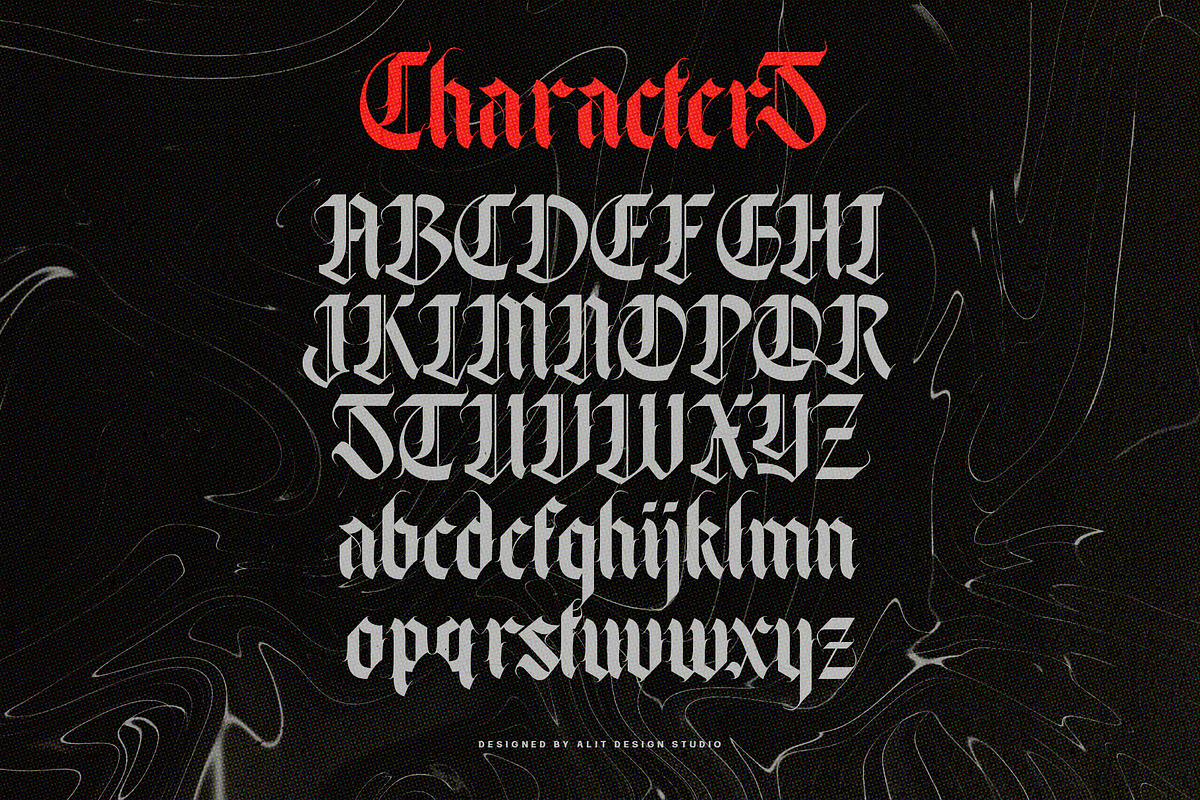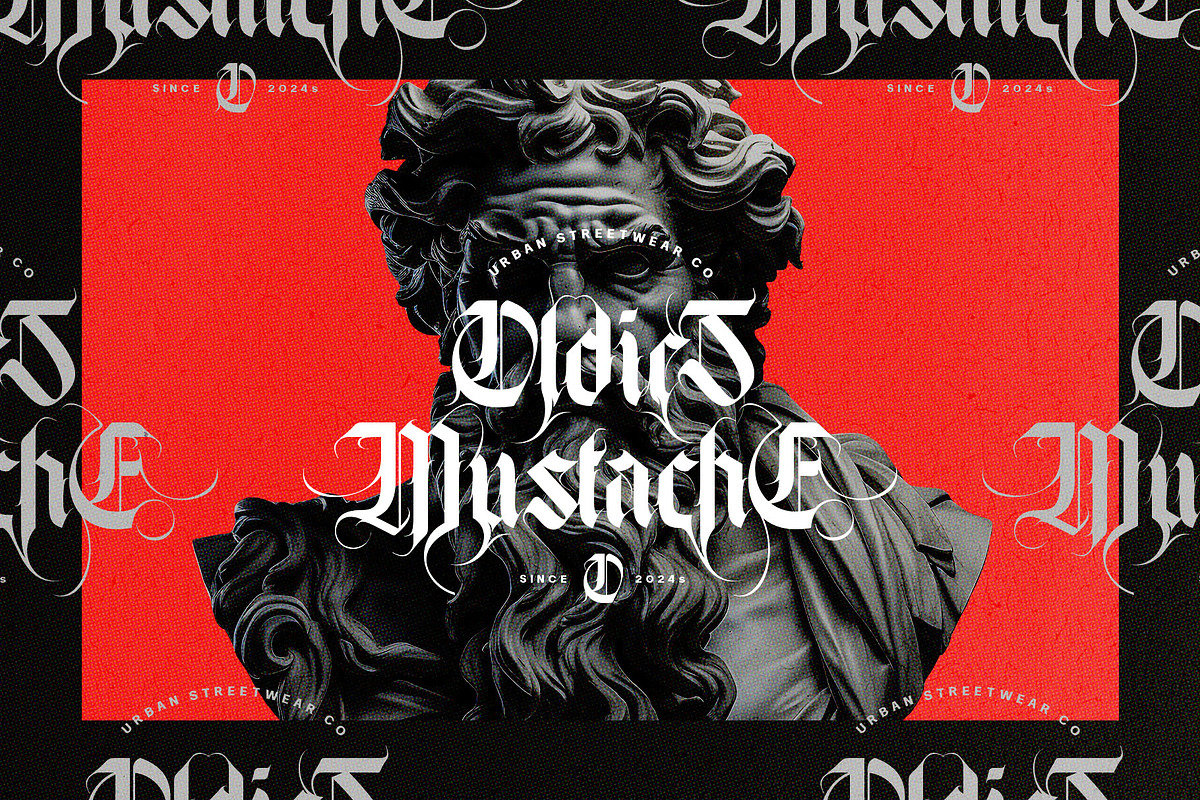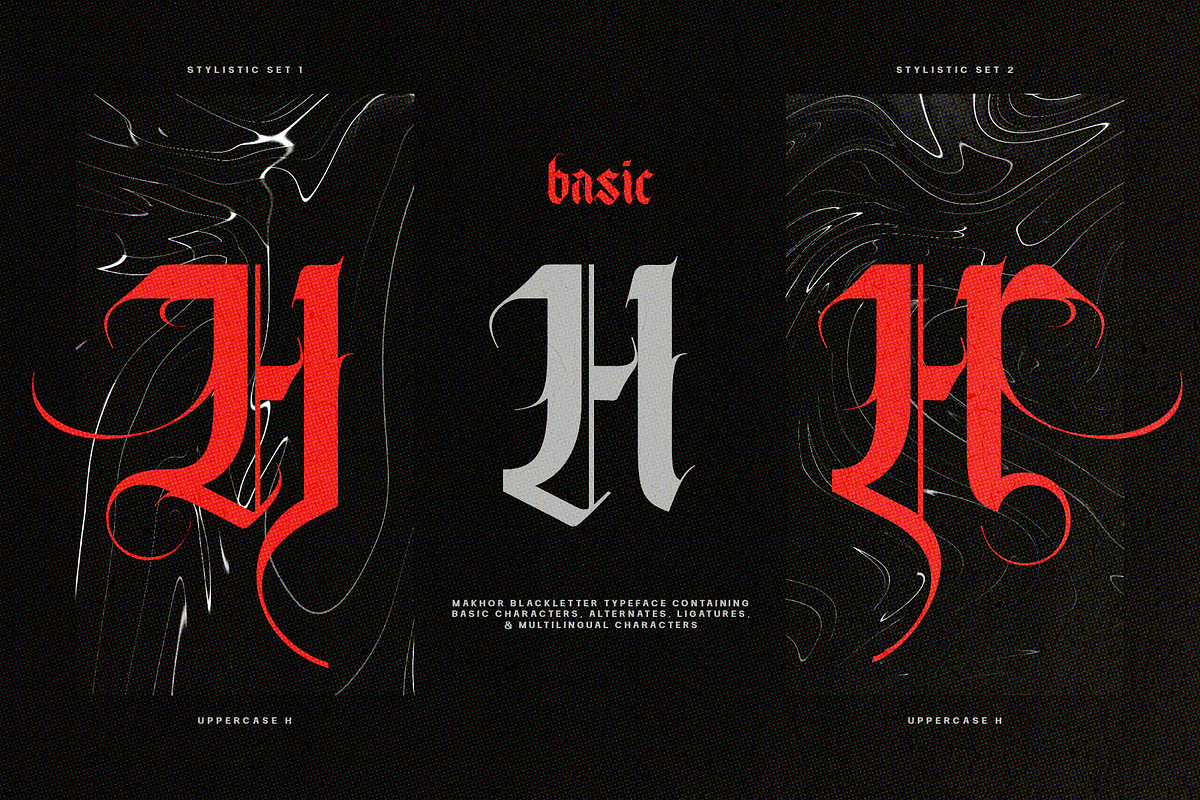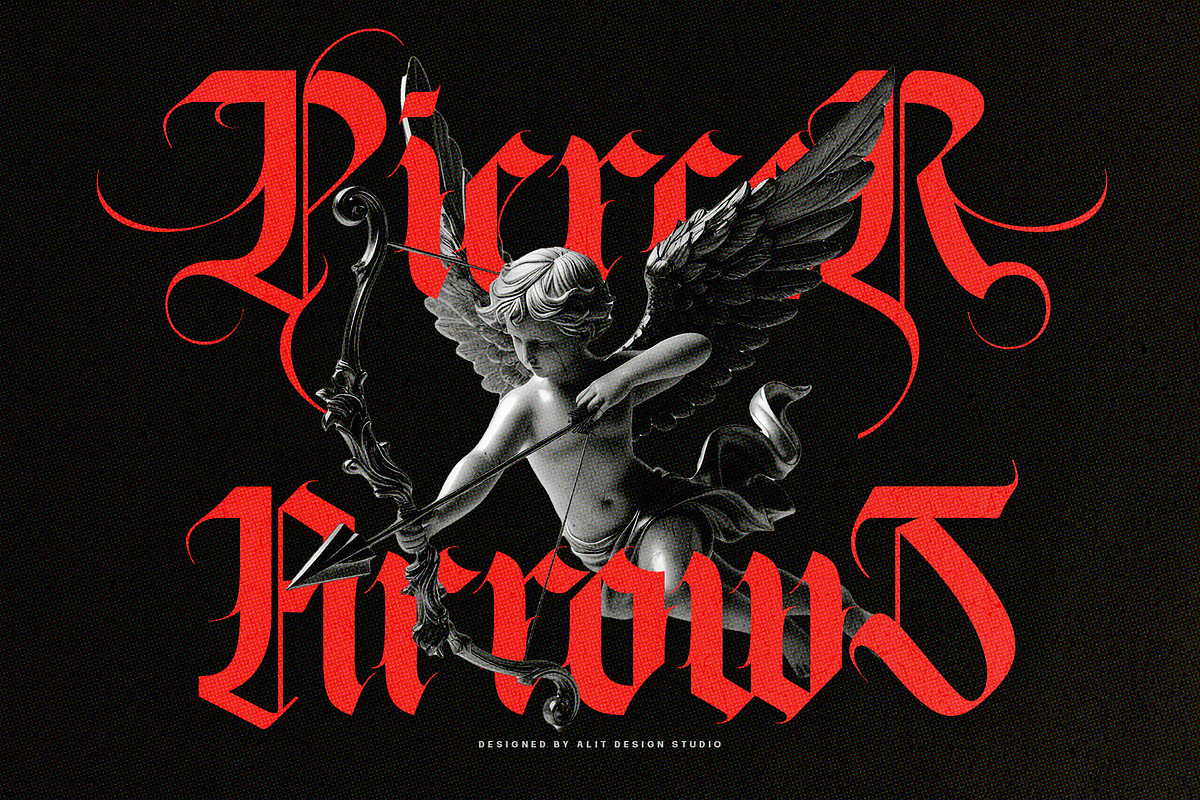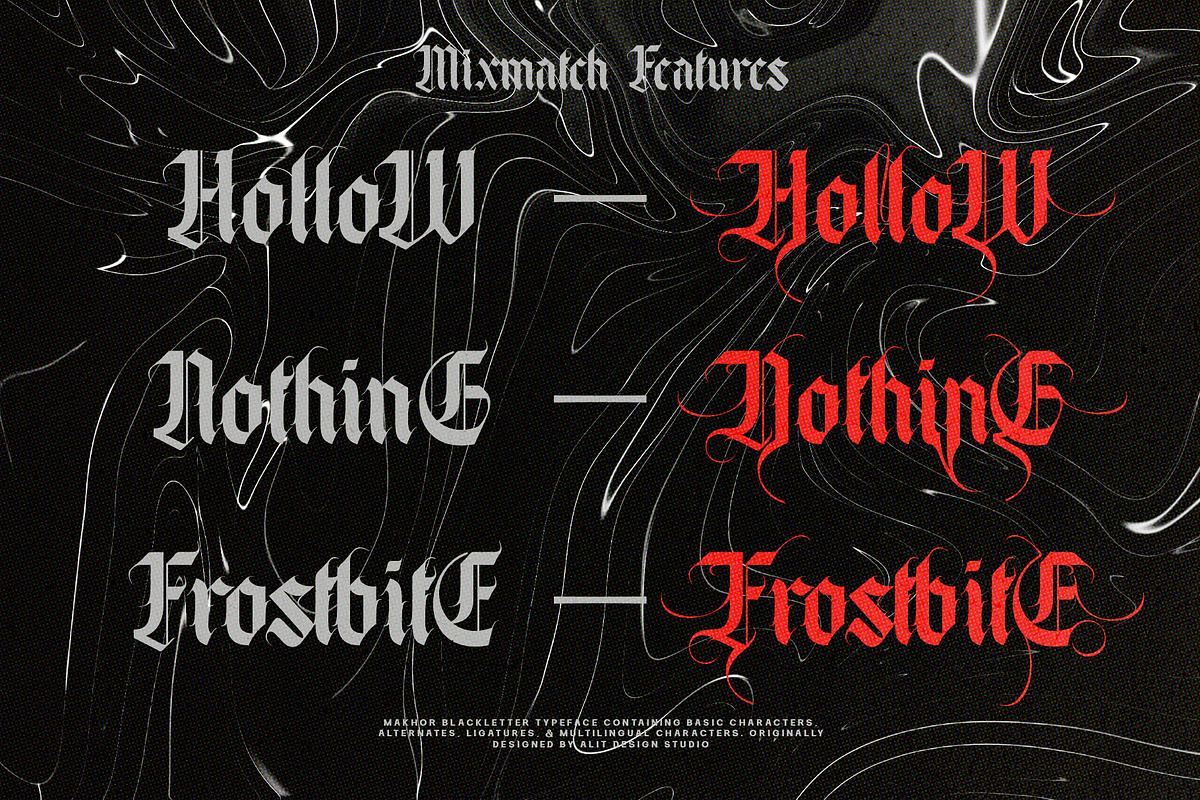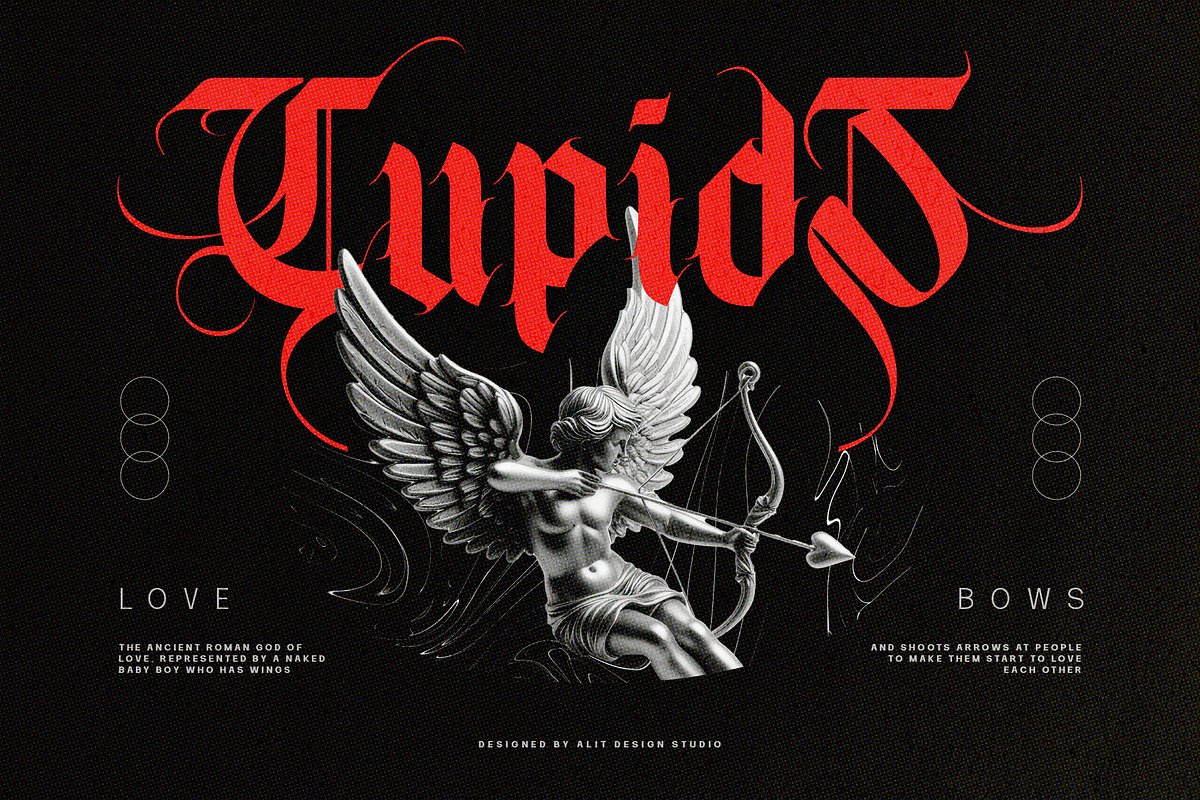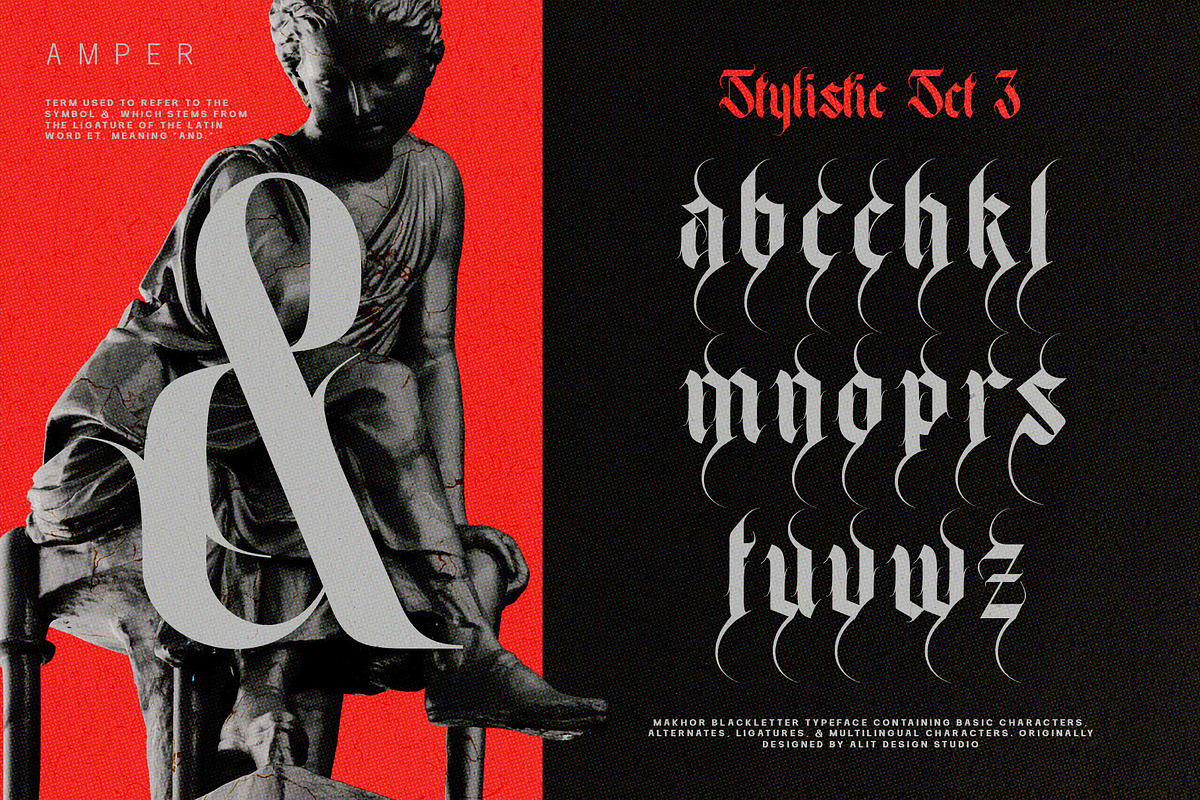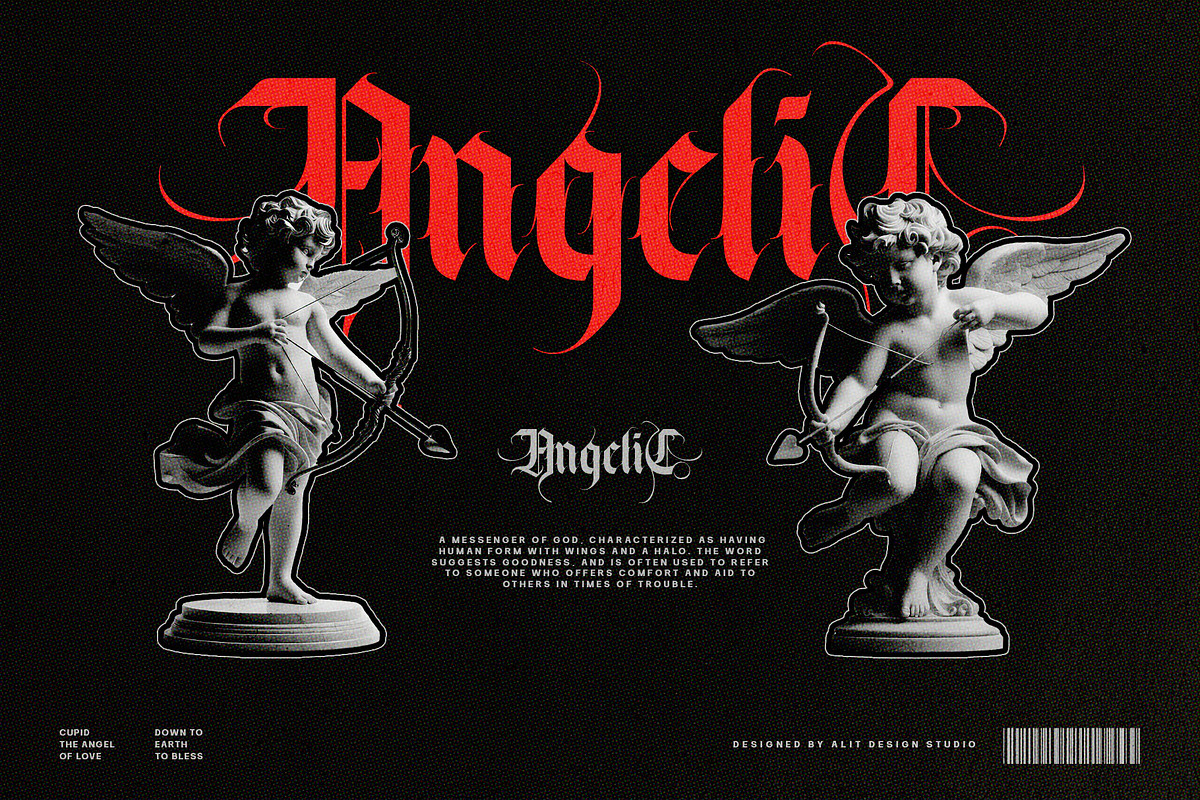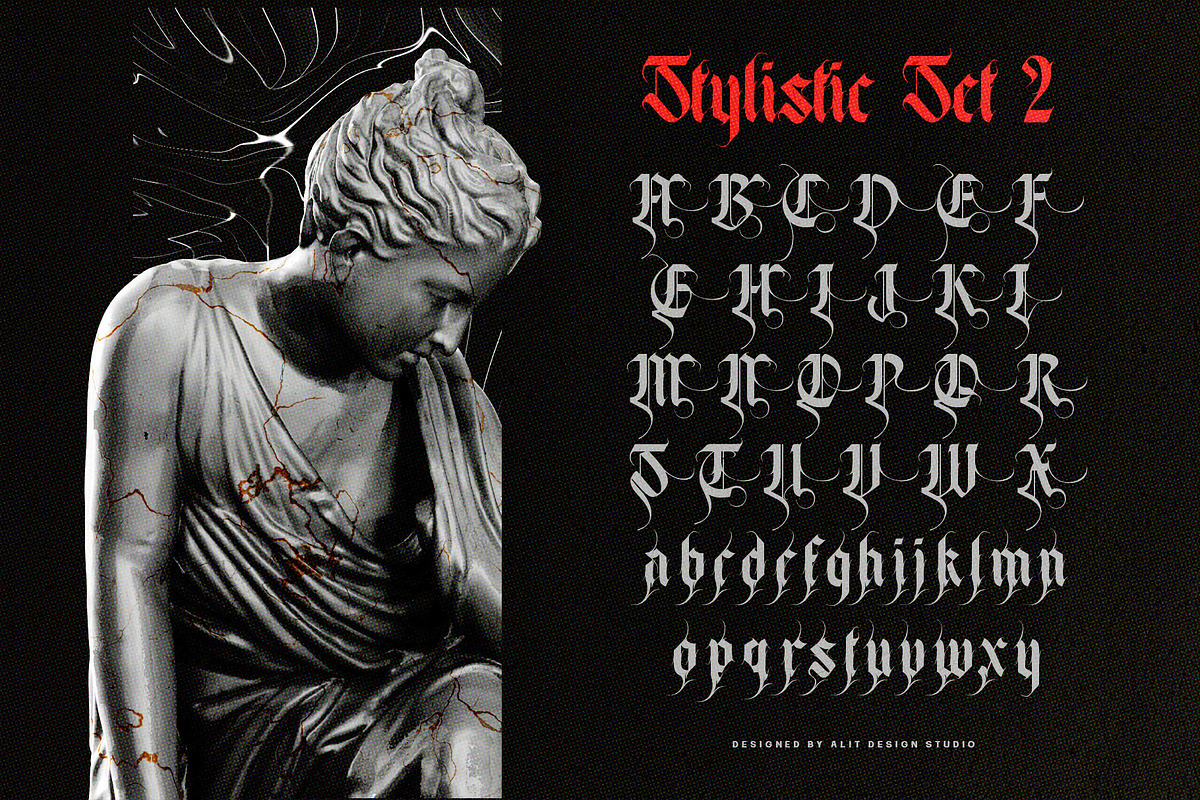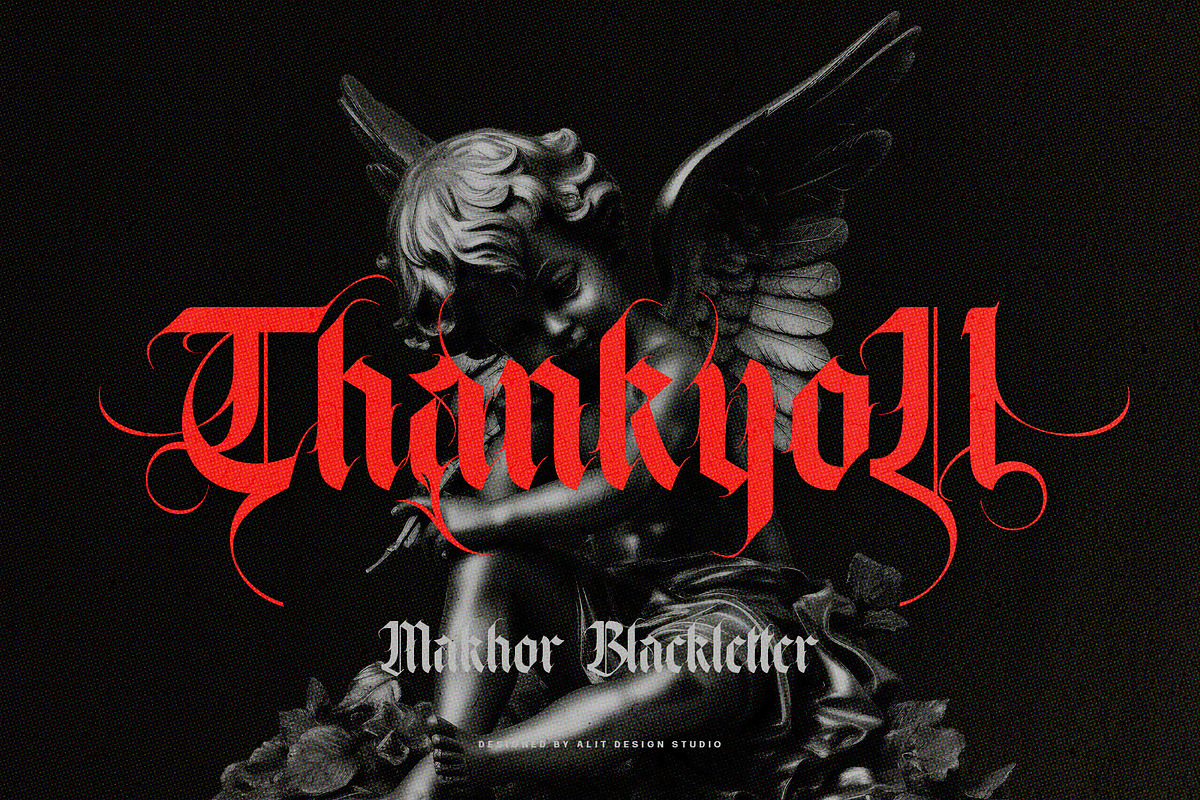
Makhor Metal Blackletter Font
Introducing Makhor Metal Blackletter Typeface: a bold and authoritative font designed to make a statement. With its intricate design and historical roots, Makhor Metal brings a touch of vintage charm to any project. Crafted with meticulous attention to detail, this typeface is perfect for projects that require a distinctive and powerful aesthetic.
653 Glyphs: Makhor Metal offers a wide range of characters, symbols, and decorative elements, totaling 653 glyphs. This extensive character set ensures versatility and flexibility in your design work.
Multilingual Support: Embrace global communication with Makhor Metal's comprehensive multilingual support. Whether your project requires English, Spanish, French, German, or beyond, this typeface has you covered.
PUA Unicode: Unlock additional design possibilities with Private Use Area (PUA) Unicode support. Access special characters and embellishments to enhance your typography and make your designs truly unique.
Swash and Ligature: Elevate your typography with elegant swashes and ligatures. Makhor Metal offers a selection of decorative elements that add flair and sophistication to your text, allowing you to create visually stunning compositions.
Whether you're designing logos, headlines, posters, or branding materials, Makhor Metal Blackletter Typeface provides the tools you need to make a lasting impression. Embrace the timeless appeal of blackletter typography with Makhor Metal, and elevate your design projects to new heights.